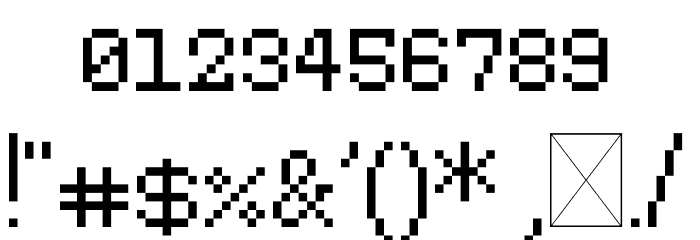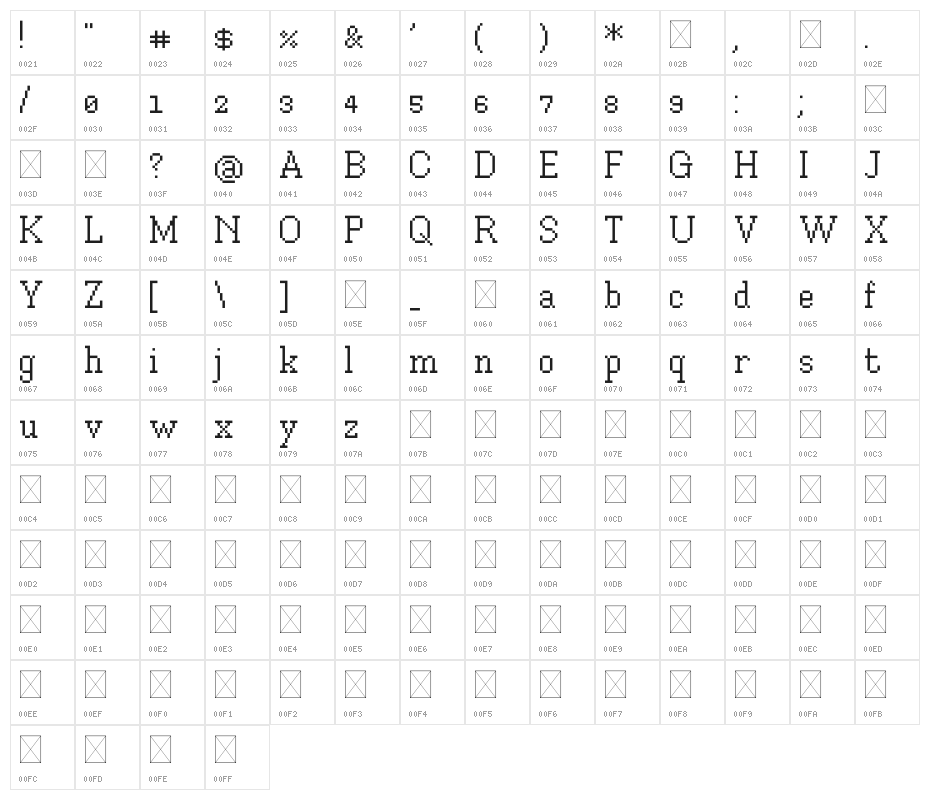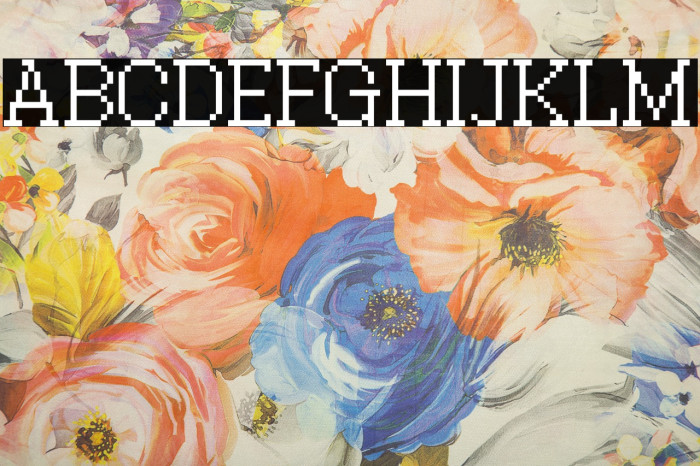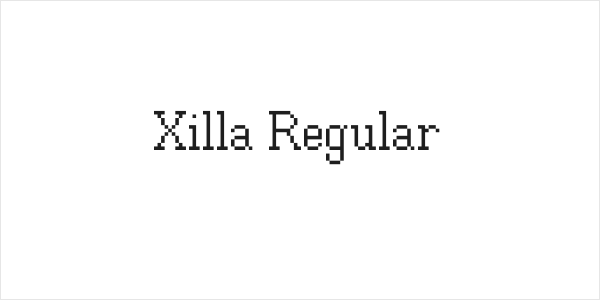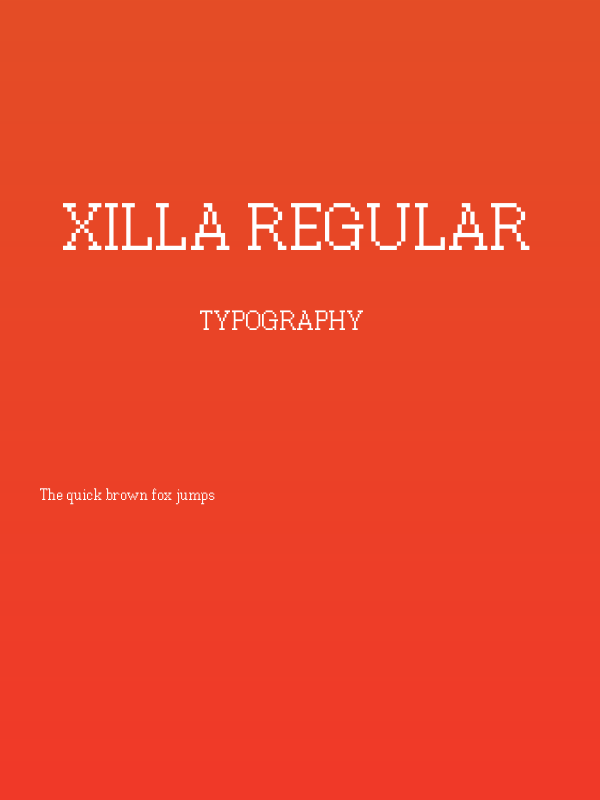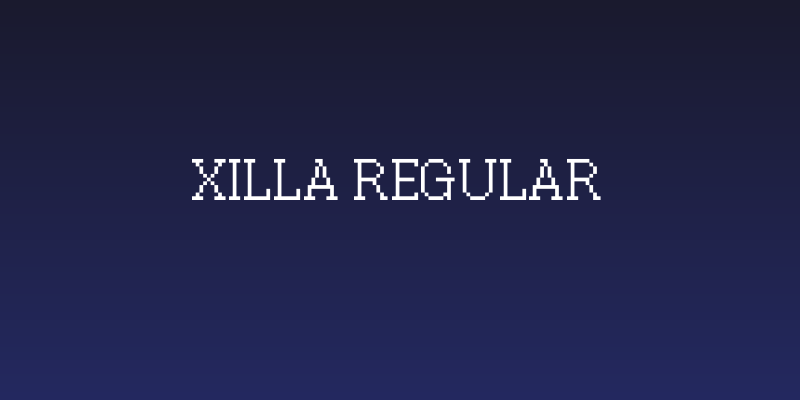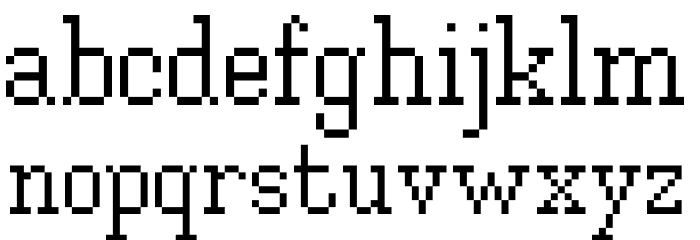
Xilla Regular Font
Xilla Regular Description
This font features a pixelated, grid-like structure reminiscent of early digital displays and retro video games. Each character is constructed with a uniform grid pattern, giving it a distinctly blocky and geometric appearance. The uppercase and lowercase letters maintain a consistent height, with the lowercase characters slightly smaller but still adhering to the pixelated style. Numbers and special characters follow the same design principles, ensuring a cohesive look across all glyphs. The font's unique aesthetic makes it ideal for projects that aim to evoke nostalgia or a digital, tech-inspired theme.
| Use Case | Headlines, Logos, Digital Art |
| Proposed Projects | Ideal for retro video game designs, tech-themed posters, digital art projects, and any creative work that requires a nostalgic or digital look. |